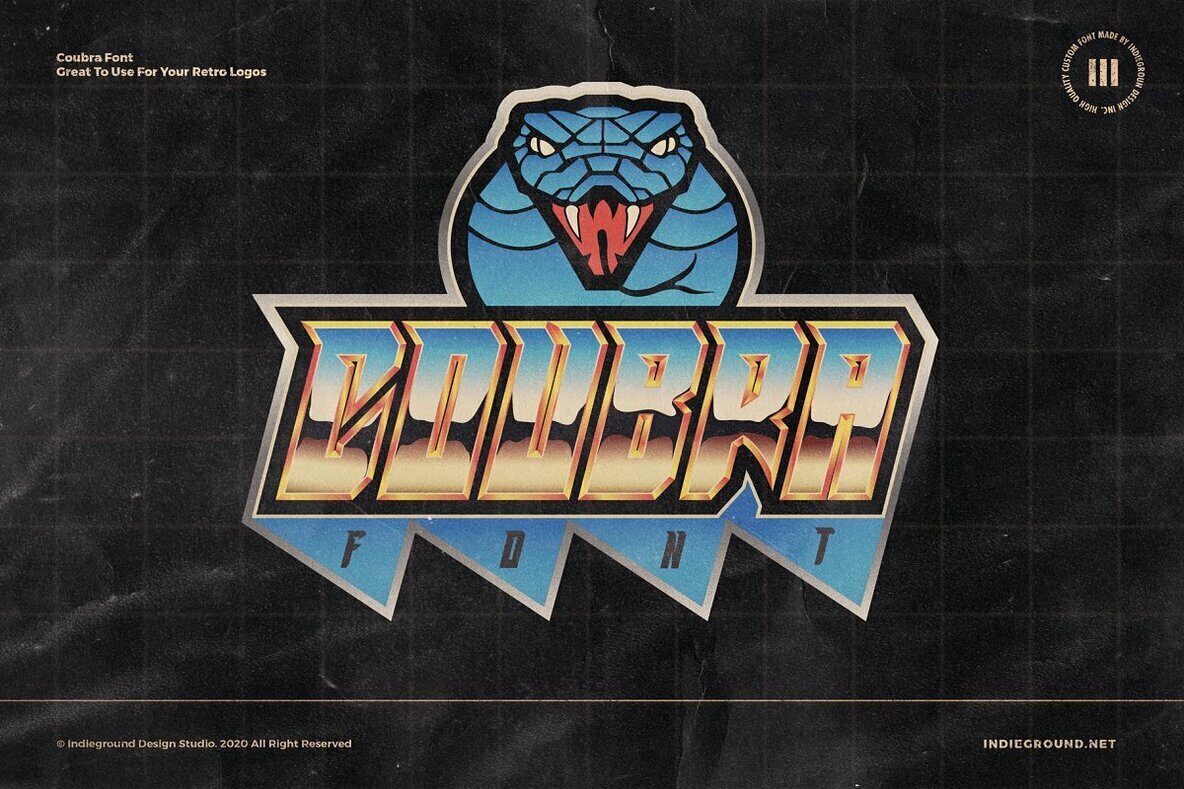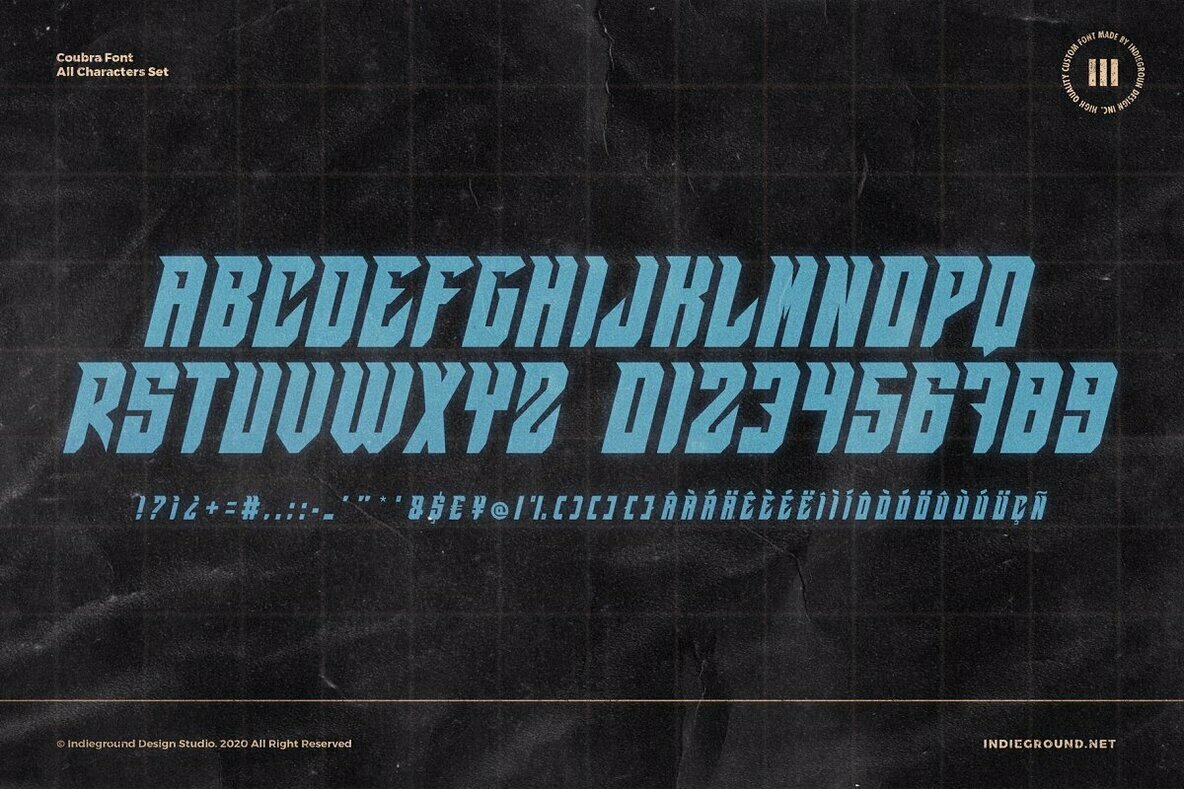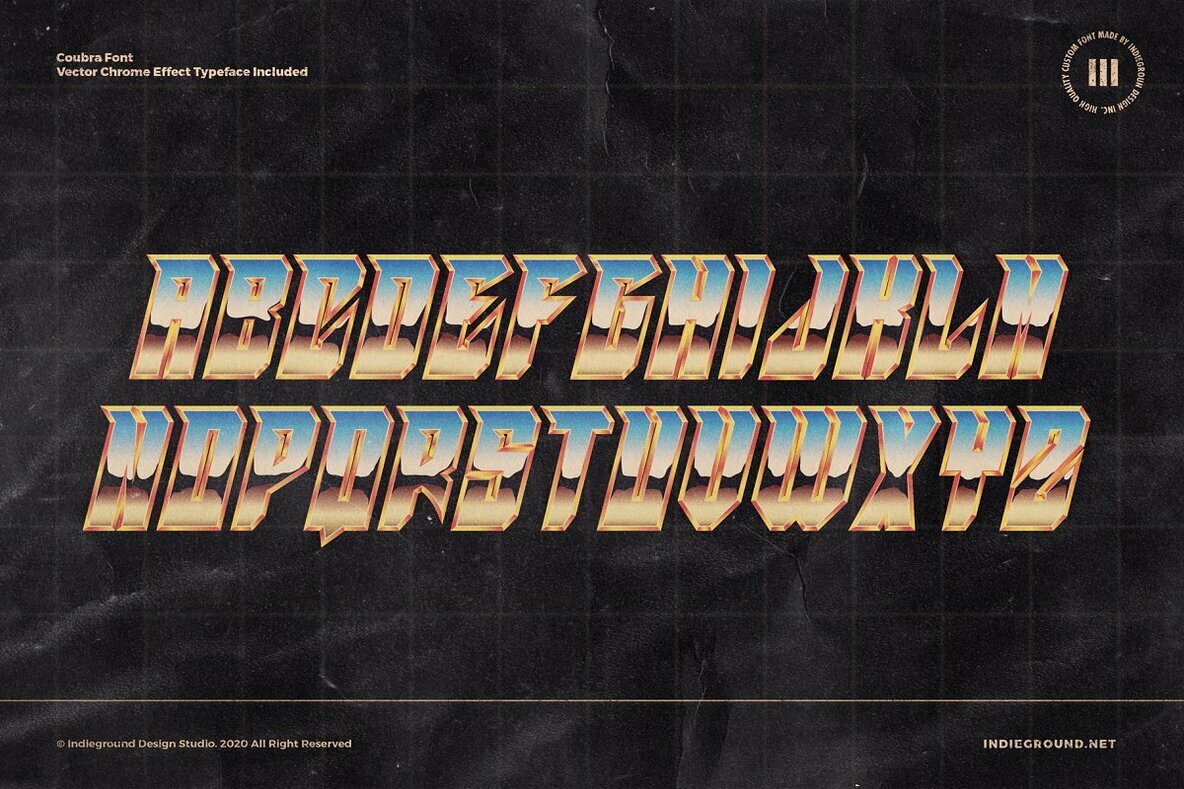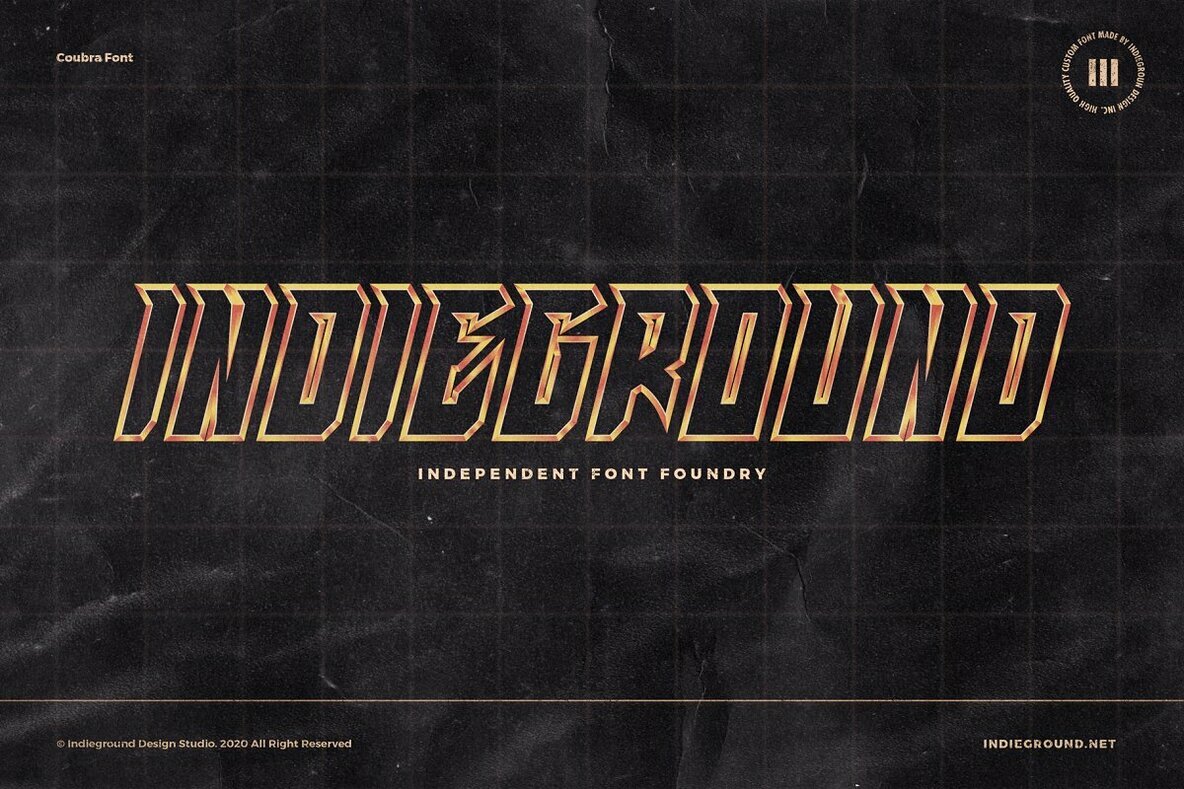
Coubra Font
Step into a vibrant world of retro design with Coubra, a striking display typeface crafted for those captivated by the 80s and synthwave aesthetics. This font infuses your projects with a nostalgic flair that stands boldly in any visual composition.Coubra Font: Retro Display for Synthwave Inspiration
Enhance your retro-inspired designs with Coubra, where every letter echoes the iconic styles of the past while appealing to modern sensibilities.